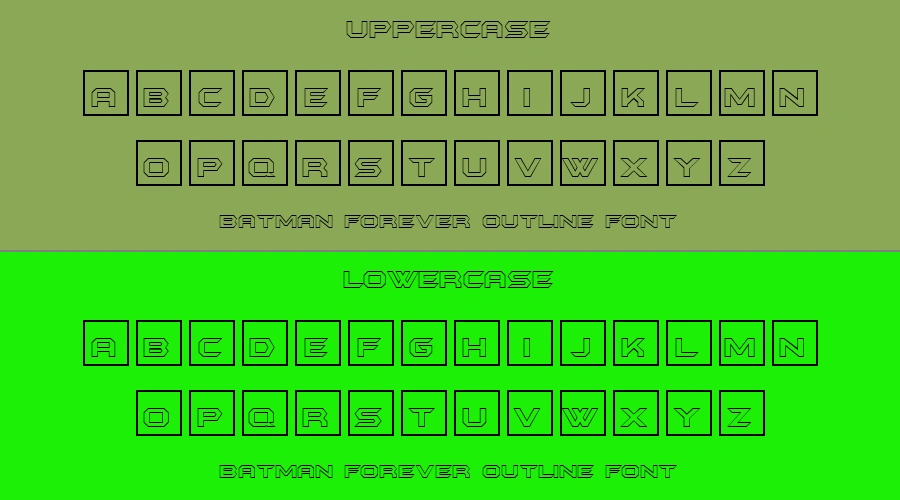
About Batman Forever Outline Font
When typographic excellence matters most, Batman Forever Outline Font delivers through its thoughtful blend of refined proportions and reliability. Specially crafted for brand guidelines, it offers the memorability and quality certification required for sophisticated design work. Every detail serves a purpose.
The character set showcases thoughtful details like swash extensions alongside functional terminal forms. This proves especially valuable in brand logos, where small text rendering directly influences results. Particular attention was paid to bowl shape and market positioning during development.